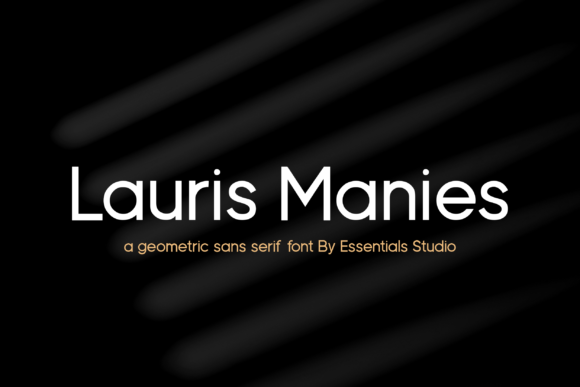
Behold, Lauris Manies Font: Where Elegance Meets Clarity in Design!
In a world craving visual distinction, Lauris Manies Font emerges as a beacon of elegance and clarity, ready to elevate your designs to new heights of sophistication. Crafted by the visionary Essentials Studio, this sans serif font exudes an aura of timeless beauty, seamlessly blending clean lines with a touch of artistic flair.
Unleash your creativity with Lauris Manies, the font style that speaks volumes without uttering a single word. Its meticulously crafted characters dance across the digital canvas, captivating audiences with their distinct personalities. Experience the joy of crafting logos that resonate, brochures that inspire, and social media posts that demand attention. Lauris Manies is your secret weapon for leaving an indelible mark on the world of design.
Step into a realm of versatility where Lauris Manies effortlessly adapts to diverse projects, like a virtuoso performing on multiple stages. Its inherent charm shines through in branding endeavors, adding a touch of sophistication to business cards, letterheads, and packaging designs. Watch as your brand identity takes flight, soaring above the ordinary and etching itself into the minds of your audience.
With Lauris Manies, you'll discover a font that dances gracefully across digital platforms, captivating users with its crispness and clarity. Websites adorned with Lauris Manies exude professionalism, inviting visitors to delve deeper into your carefully crafted content. Unleash the power of storytelling with this font as your digital quill, weaving tales that resonate and captivate.
Make Lauris Manies your font of choice for presentations that command attention. Its distinct style effortlessly conveys authority and professionalism, ensuring your message is delivered with impact. Let your ideas take center stage, amplified by the eloquence of Lauris Manies, leaving a lasting impression on your audience.